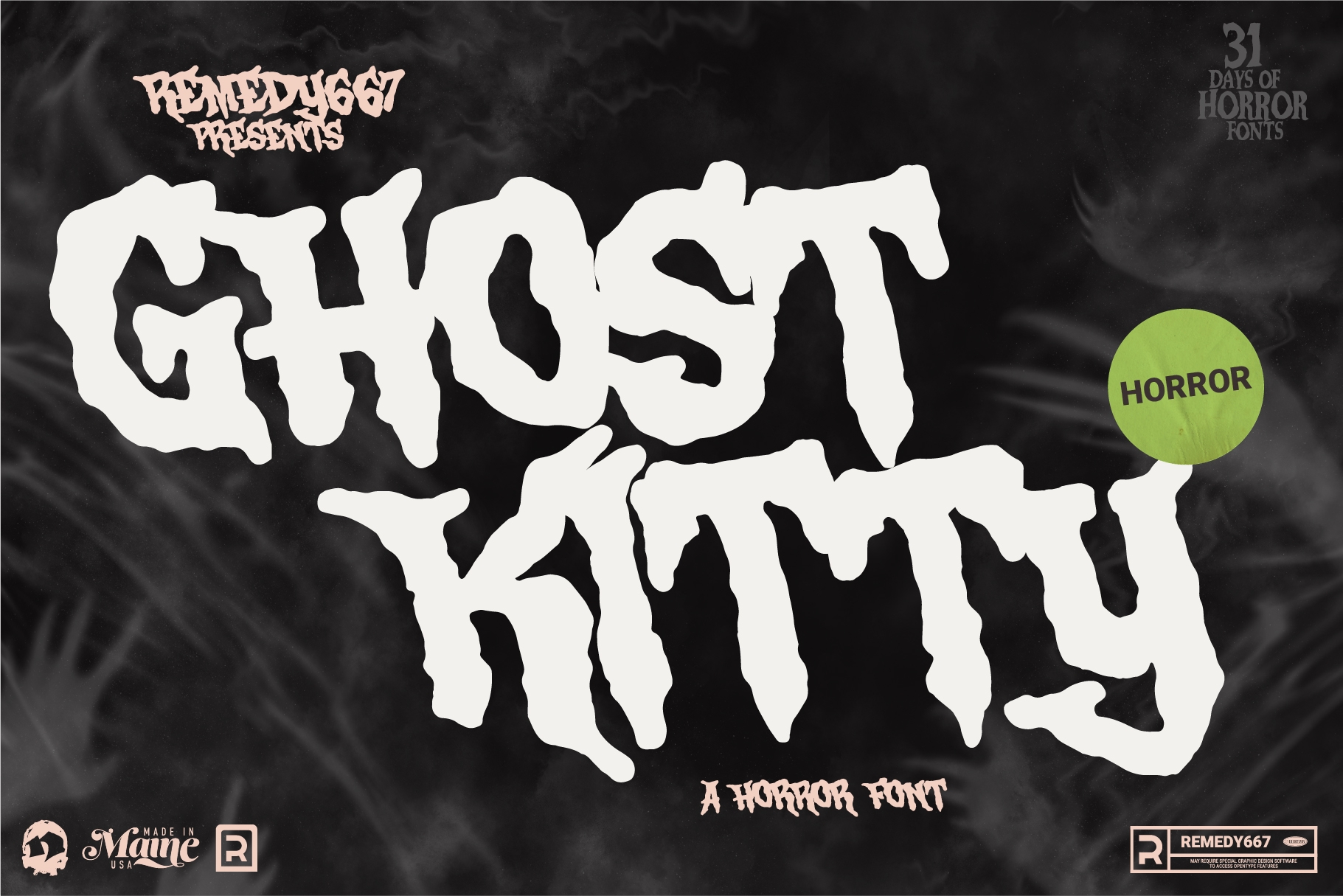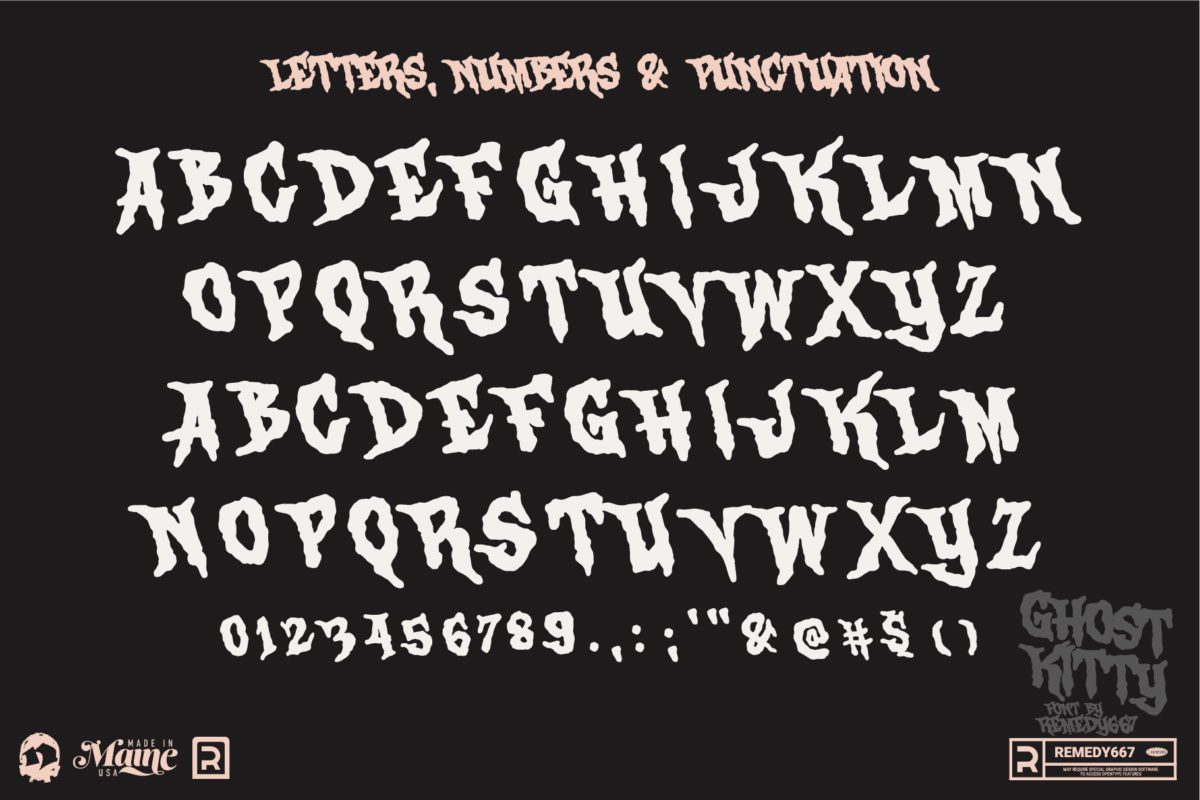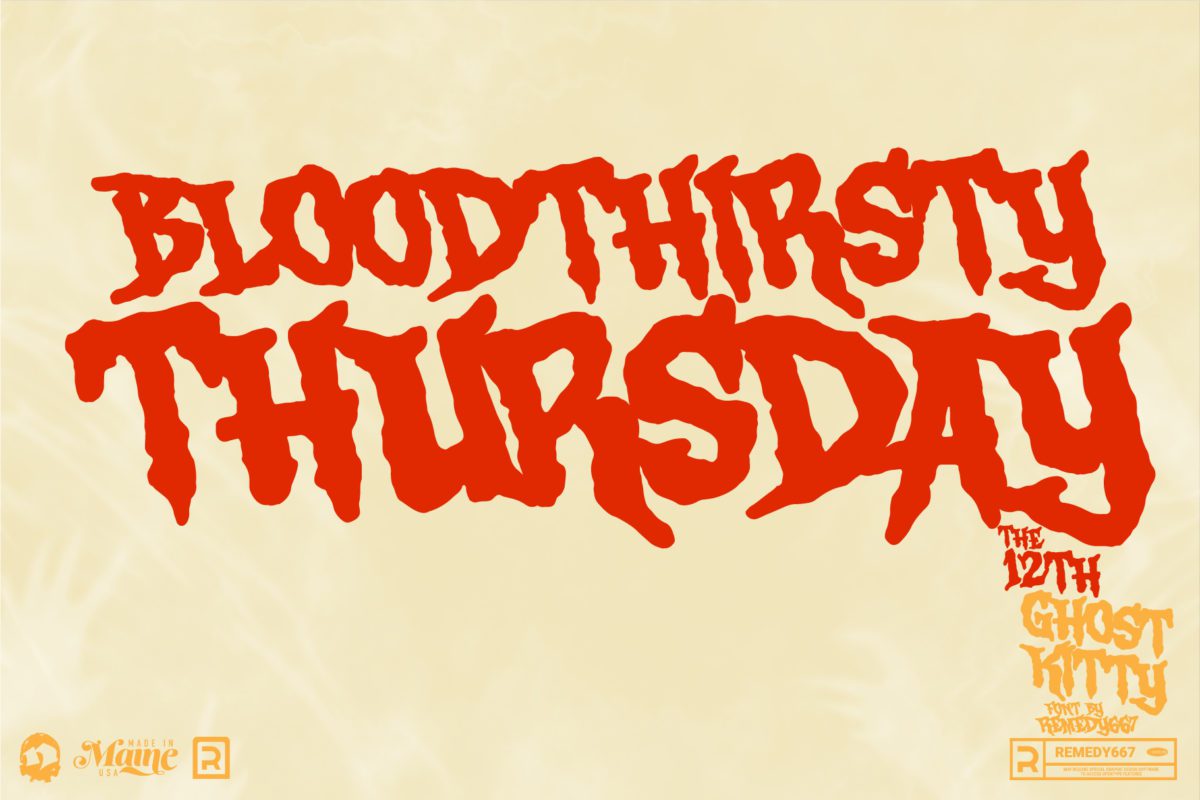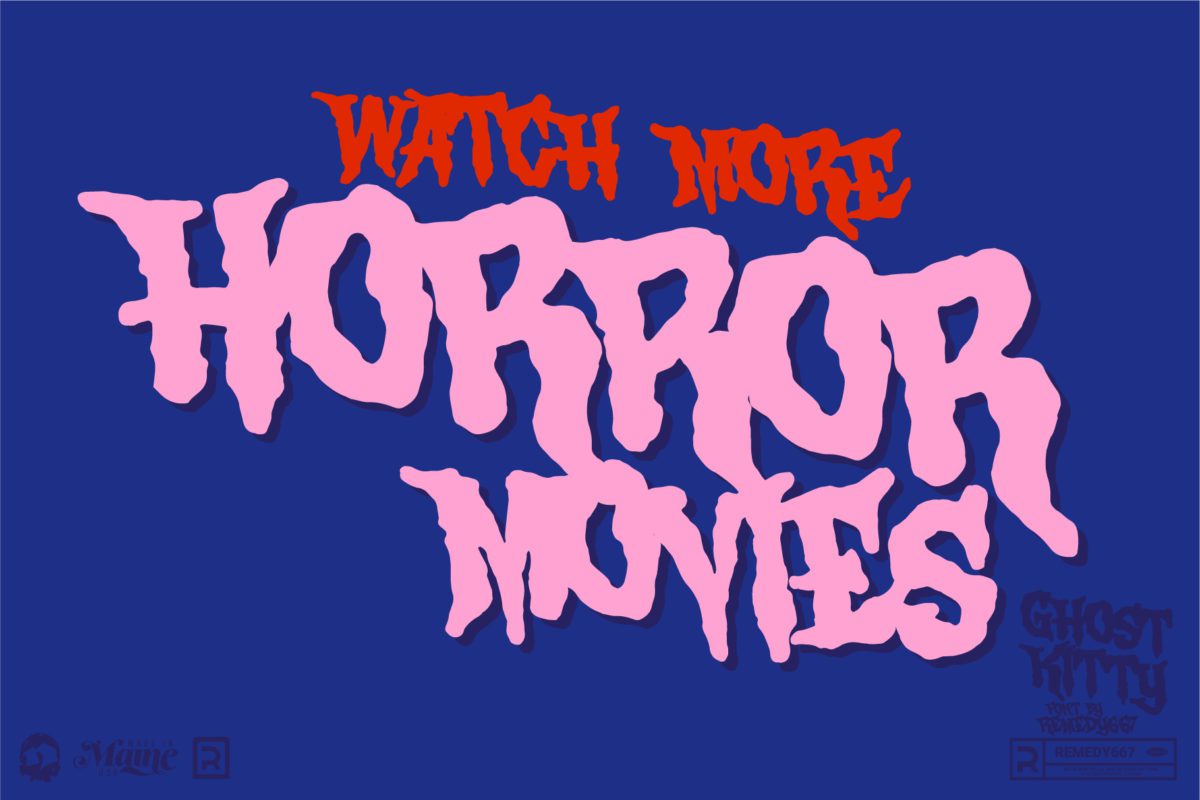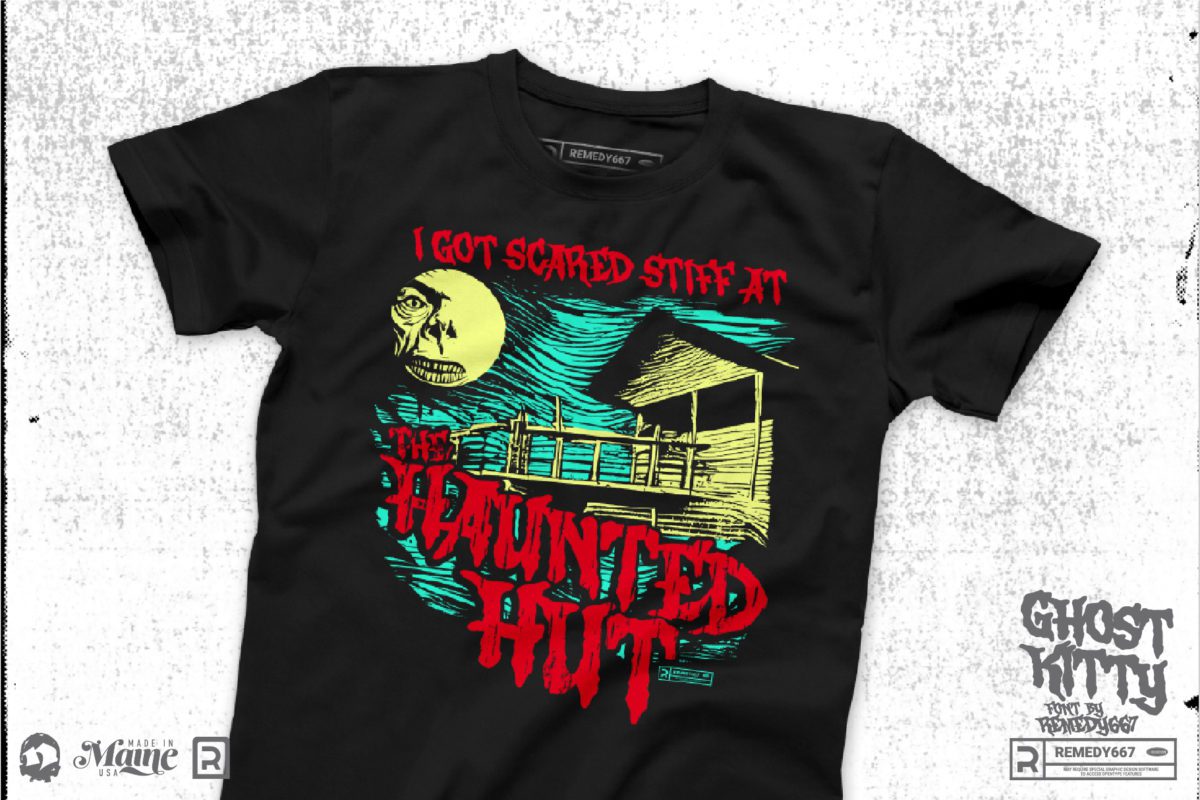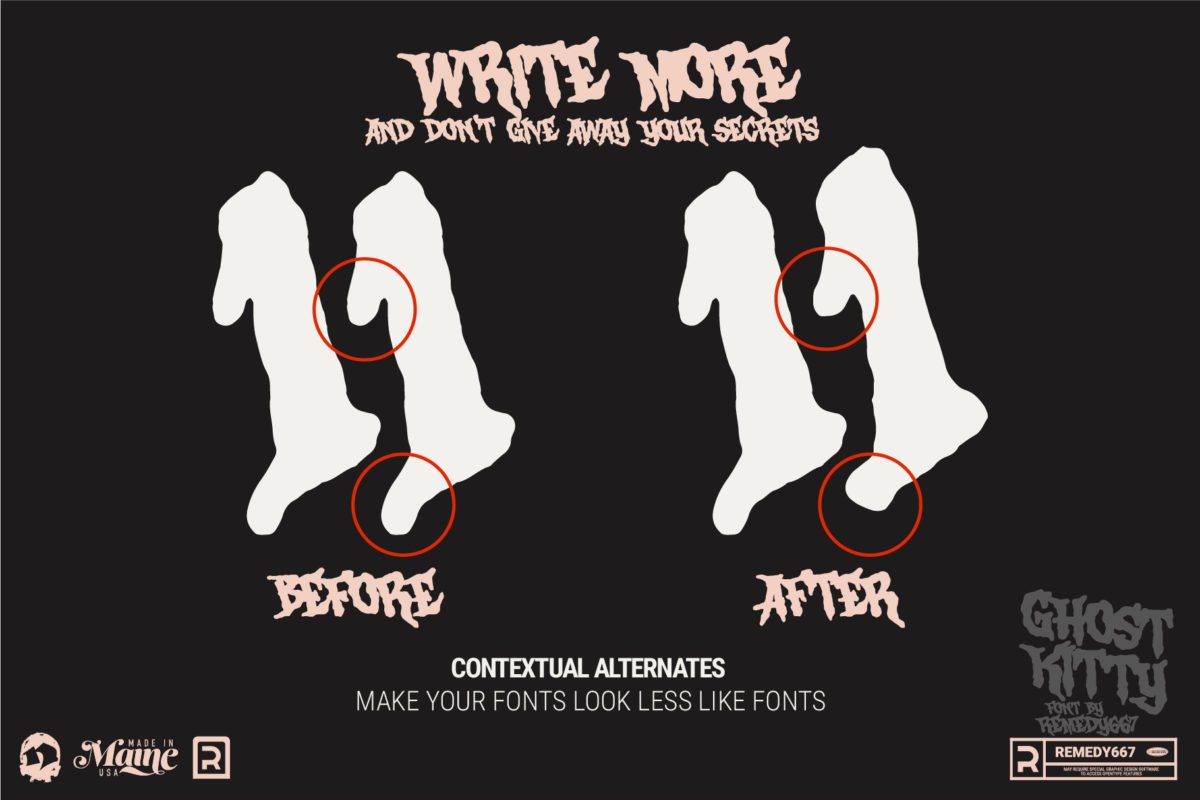
Ghost Kitty
Ghost Kitty is a spooky, mystical font that’s perfect for writing scary titles, eerie phrases and things that go bump in the night. Perfect for getting that classic monster movie vibe. This font is great for creative projects like album artwork, book covers and poster designs. Give your content that spooky edge with Ghost Kitty!
Ghost Kitty is the weird and scary font you’re looking for. Check it out meow.
- Contextual alternates for numbers and letters
- Ghost Kitty is the perfect font for titles and taglines